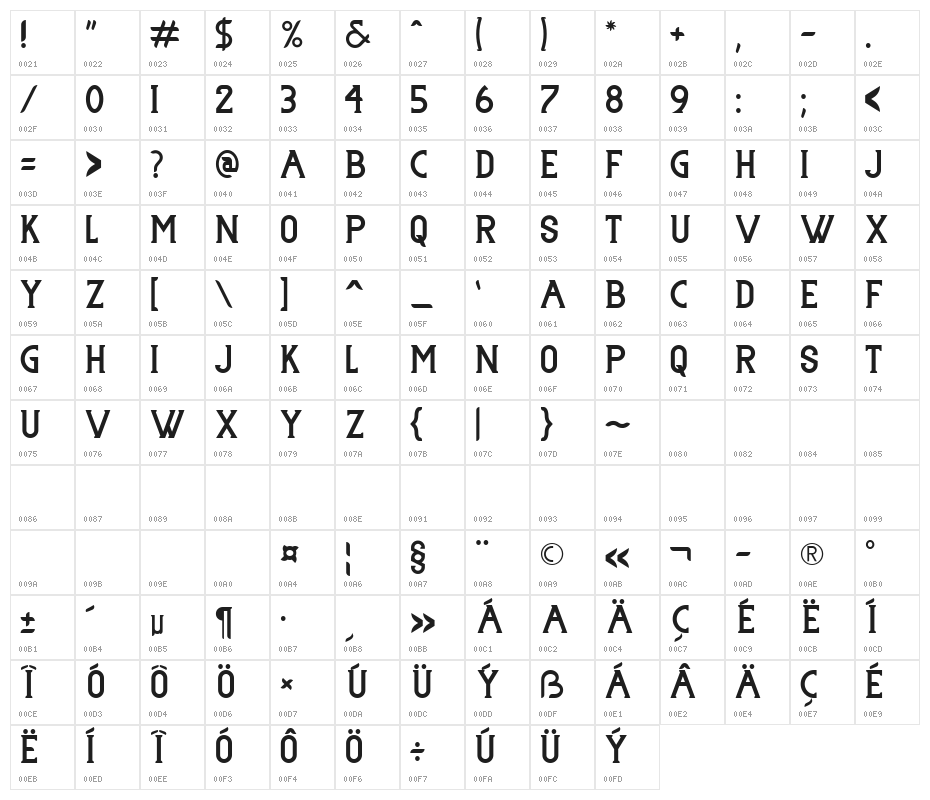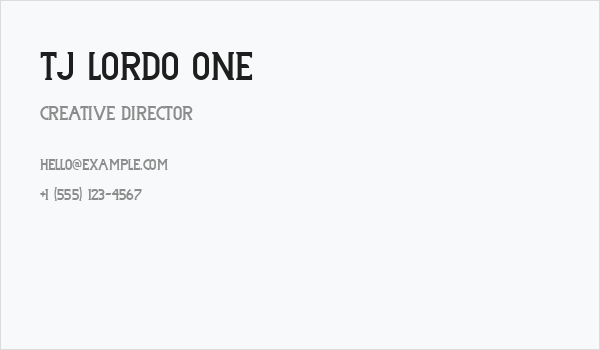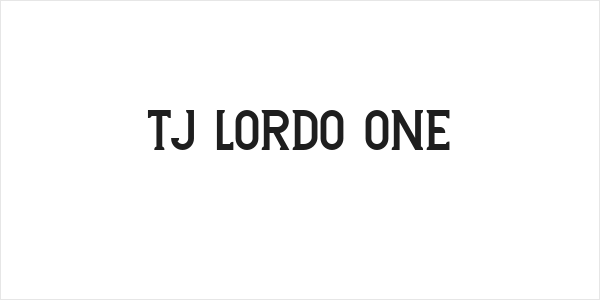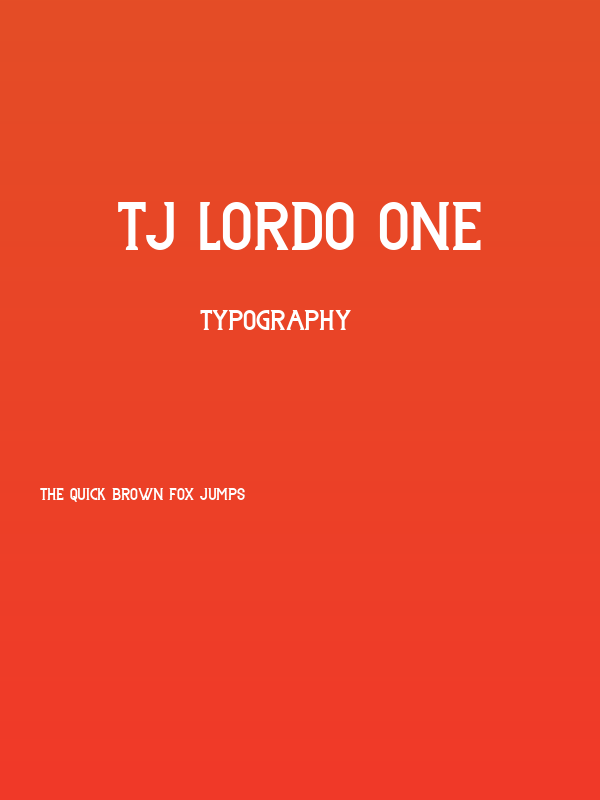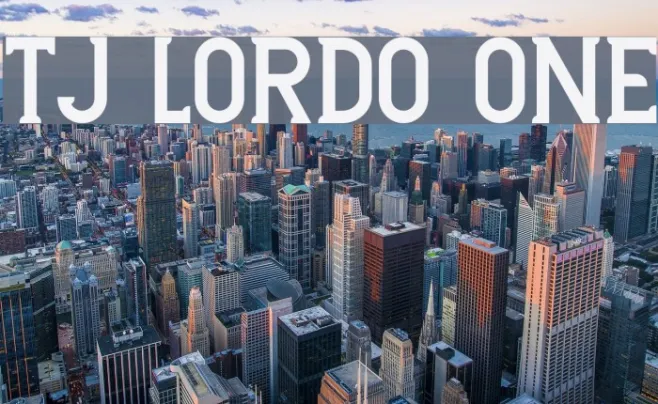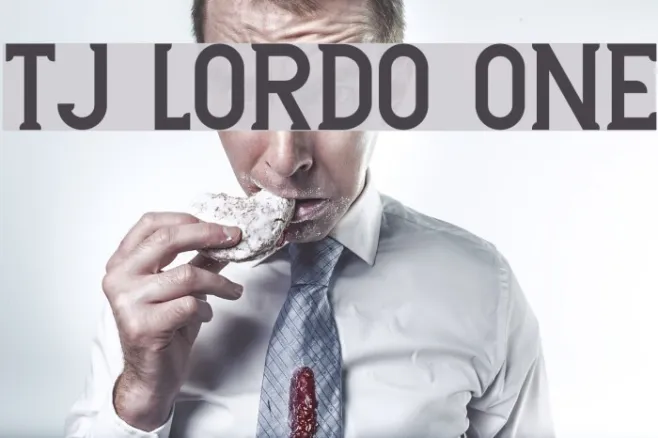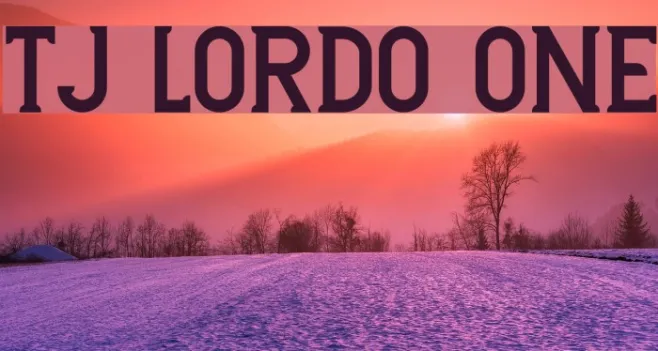
TJ Lordo One Font
TJ Lordo One Description
This font features a bold and commanding presence with its strong, angular lines and slightly condensed form. The uppercase letters are particularly striking, with a uniform height and a subtle flair on certain characters like 'Q' and 'R'. The numerals are equally bold, maintaining the same weight and style as the letters, ensuring consistency across different types of content. The special characters are well-integrated, offering a cohesive look that complements the overall design. This font's distinct style makes it suitable for projects that require a strong visual impact.
| Proposed Projects | Ideal for branding, headlines, posters, and any design requiring a bold statement. |